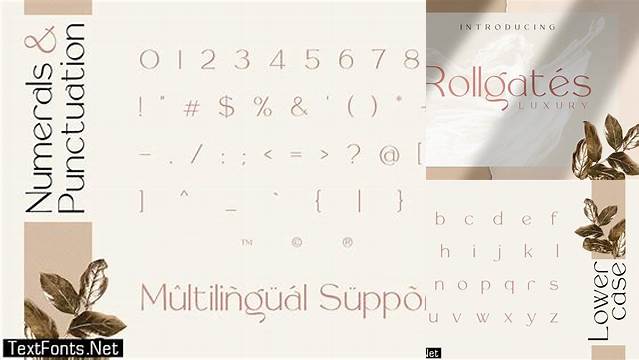
Rollgates Luxury Font: Free Download & Usage Guide
Are you on the hunt for a luxurious font that can elevate your design projects? Well, look no further! In this article, we'll dive deep into the world of Rollgates luxury font, exploring its features, where you can find it for free, and how to use it to create stunning visuals. We will guide you through the intricacies of typography and empower you to make informed decisions about incorporating this typeface into your design toolkit. We'll explore the unique characteristics that make Rollgates stand out, providing a detailed look at its aesthetics and potential applications across various design fields. Furthermore, we'll delve into the ethical considerations surrounding free font usage, ensuring you're equipped with the knowledge to navigate licensing and attribution requirements. By the end of this comprehensive guide, you'll not only know how to download and use Rollgates, but also understand the broader context of font selection and integration in design.
What Makes Rollgates a Luxury Font?
When we talk about a luxury font, what exactly do we mean? It's more than just a pretty typeface; it's about the feeling it evokes. Rollgates, for example, exudes sophistication and elegance. Its meticulously crafted letterforms, with their delicate curves and balanced strokes, convey a sense of high-end quality. Luxury fonts often feature unique stylistic elements, such as pronounced serifs, elegant swashes, or intricate ligatures, that set them apart from more commonplace typefaces. These details contribute to the font's overall personality, making it suitable for projects that demand a touch of class and refinement. Rollgates, in particular, often boasts a high level of legibility despite its decorative features, making it versatile for both headlines and body text. Its balanced design ensures that it remains readable even at smaller sizes, a crucial factor in maintaining professionalism and clarity across different applications. Think about prestigious brands like Chanel or Dior – their logos and marketing materials rely heavily on elegant typography to communicate their brand identity. Rollgates can help you achieve a similar effect, adding a touch of opulence to your own designs. This section will not only define what constitutes a luxury font but also pinpoint specific characteristics of Rollgates that align with this definition. By understanding these qualities, designers can better assess whether Rollgates fits the aesthetic and functional needs of their projects.
Key Characteristics of Rollgates
Let's break down what makes Rollgates a standout luxury font. Its elegant lines and refined details are immediately noticeable. The font often features a high contrast between thick and thin strokes, adding a touch of drama and visual interest. The serifs, if present, are typically delicate and well-defined, contributing to the font's overall sophistication. Rollgates often incorporates graceful curves and flowing lines, creating a sense of movement and fluidity. It’s not just about the individual letters, but how they interact with each other. Well-designed ligatures, where two or more letters are joined together in a single glyph, can add a unique and polished touch. The spacing between letters, known as kerning, is also crucial. Rollgates typically has carefully adjusted kerning to ensure a harmonious and balanced appearance. Moreover, the overall structure of Rollgates often follows classic typographic principles, drawing inspiration from timeless typefaces while adding its own contemporary twist. This blend of traditional and modern elements makes it versatile for a wide range of design applications. From logo design and branding to editorial layouts and web design, Rollgates can adapt to different contexts while maintaining its distinctive character. Ultimately, the key characteristics of Rollgates contribute to its overall aesthetic appeal, making it a popular choice for projects that require a touch of elegance and sophistication. This deep dive into the font’s structure and design elements will help readers appreciate its artistic value and understand its potential applications.
How to Use Rollgates in Your Designs
So, you've got Rollgates installed – now what? It's time to put this luxury font to work! Rollgates, with its elegant and refined aesthetic, is perfect for a variety of design applications. Think about using it for logos, branding materials, invitations, and headlines. Its sophisticated look can instantly elevate your projects. When using Rollgates, consider the overall tone and message you want to convey. This font works particularly well for projects that aim for a sense of luxury, sophistication, or elegance. For example, it could be a great choice for a high-end fashion brand, a boutique hotel, or a wedding invitation. However, it's important to use it judiciously. Overusing a decorative font like Rollgates can make your design look cluttered and overwhelming. Instead, try pairing it with a simpler sans-serif font for body text to create a balanced and visually appealing layout. Experiment with different font sizes and weights to see what works best for your project. Rollgates may look stunning in a large headline, but it might not be as legible in smaller body text. Pay attention to the spacing between letters and lines to ensure readability. Kerning and leading can make a big difference in the overall appearance of your typography. Finally, consider the color palette and imagery you're using in your design. Rollgates pairs well with classic and elegant color schemes, such as black and white, gold, and muted tones. High-quality imagery and a clean layout will further enhance the font's luxurious feel. This section will provide practical advice and creative inspiration for incorporating Rollgates into various design projects, ensuring that readers can effectively leverage its unique qualities.
Best Practices for Pairing Rollgates with Other Fonts
One of the keys to effective typography is pairing fonts that complement each other. When working with a luxury font like Rollgates, it's essential to choose a secondary font that balances its decorative qualities. The goal is to create a harmonious and visually appealing design, not a chaotic one. A common strategy is to pair a serif font like Rollgates with a sans-serif font for body text. This combination provides a clear visual hierarchy, making the headline stand out while ensuring readability for the main content. Some popular sans-serif pairings for Rollgates include Open Sans, Montserrat, and Lato. These fonts are clean and neutral, allowing Rollgates to shine without being overshadowed. Another approach is to pair Rollgates with a simpler serif font that has a more classic and understated design. Fonts like Garamond or Palatino can create a sophisticated and timeless look. When choosing a secondary font, consider its weight and style. A lighter weight sans-serif font can provide a subtle contrast to Rollgates' heavier strokes, while a bold sans-serif font can create a more dramatic effect. Experiment with different pairings to see what works best for your project. It's also important to pay attention to the font sizes and spacing. Use a larger font size for Rollgates in headlines and a smaller font size for the body text. Adjust the kerning and leading to ensure that the text is legible and visually balanced. Remember, the goal is to create a cohesive and professional design. By carefully selecting and pairing fonts, you can enhance the overall impact of your message and create a visually stunning result. This section will offer specific recommendations and guidelines for font pairing, helping designers create balanced and effective typographic compositions.
Conclusion: Elevate Your Designs with Rollgates
In conclusion, Rollgates luxury font is a fantastic option for designers looking to add a touch of elegance and sophistication to their work. Its refined details and graceful lines make it suitable for a wide range of projects, from logos and branding to invitations and headlines. By understanding its key characteristics and how to pair it with other fonts, you can create visually stunning designs that leave a lasting impression. However, it's crucial to remember the importance of font licensing and usage rights. Always ensure that you have the proper license before using a font in your projects, and respect the terms of service set by the font designer. By doing so, you're supporting the creative community and ensuring that designers can continue to produce high-quality typefaces. With Rollgates in your font library, you'll have a powerful tool at your disposal for elevating your designs and creating a sense of luxury and refinement. So go ahead, experiment with this beautiful typeface and see how it can transform your projects. This concluding section will recap the key takeaways from the article, reinforcing the value of Rollgates as a design asset and emphasizing the importance of ethical font usage.